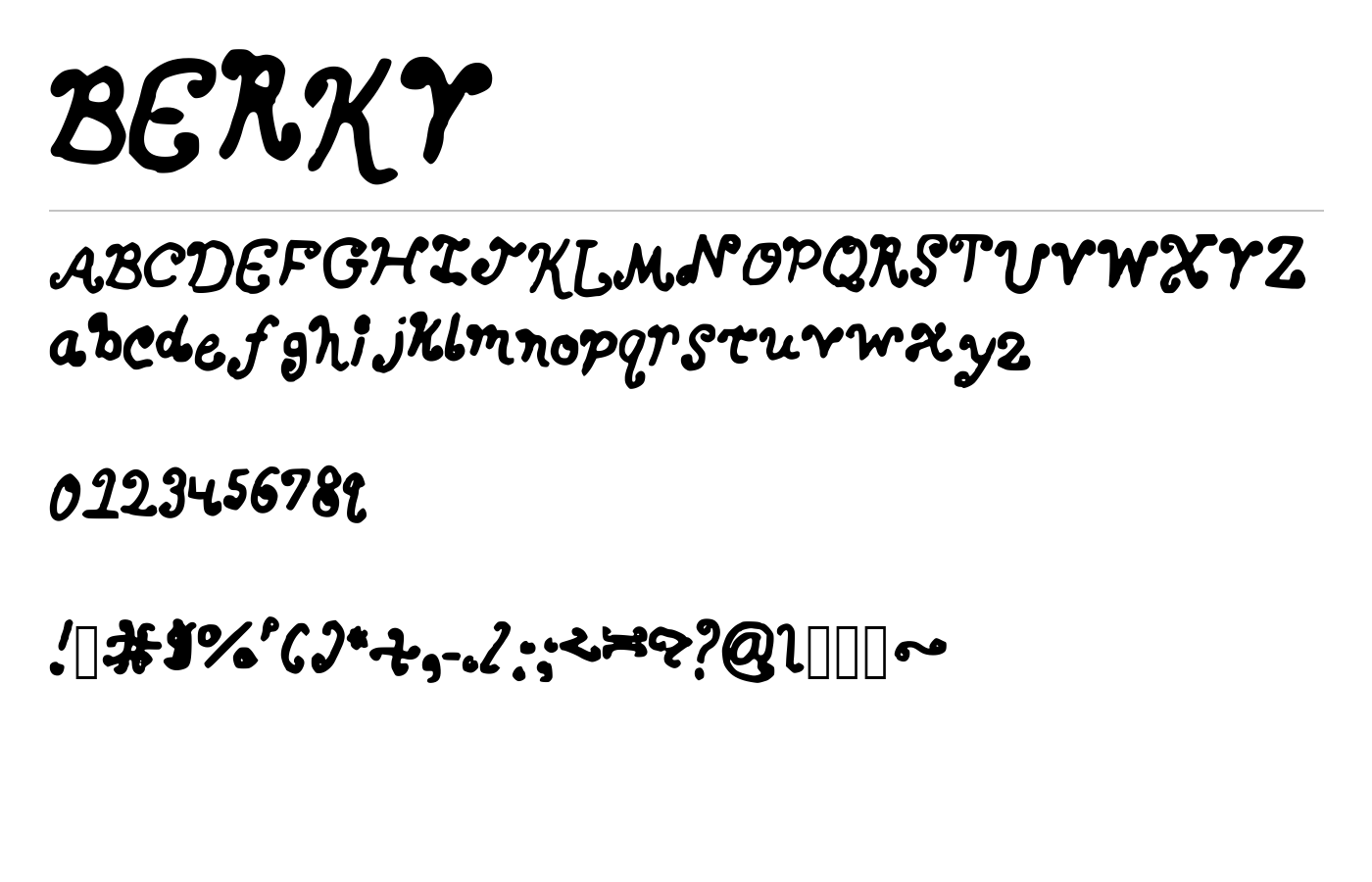
BERKY is a playful and whimsical serif font with a bold, irregular stroke style that gives it a hand-crafted, quirky charm. Its unique letterforms with rounded terminals and varied stroke widths make it ideal for creative and informal designs, perfect for eye-catching headlines, logos, and fun-themed branding that seeks to stand out with personality.
BERKY Font
About BERKY Font